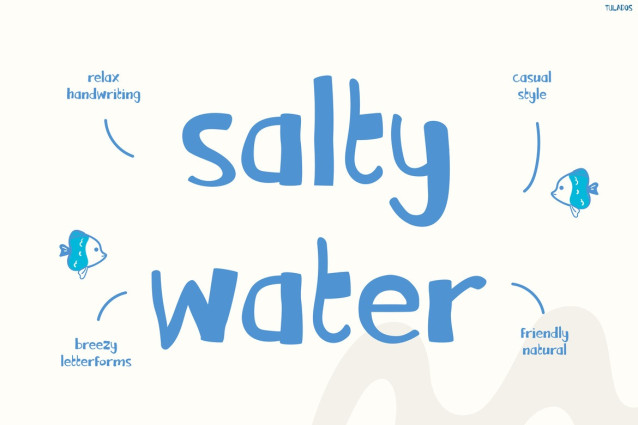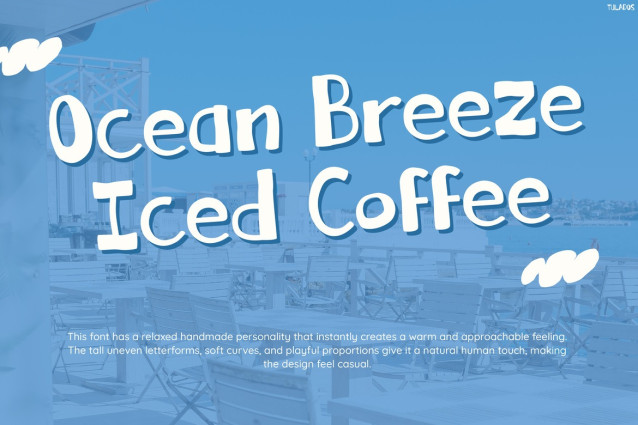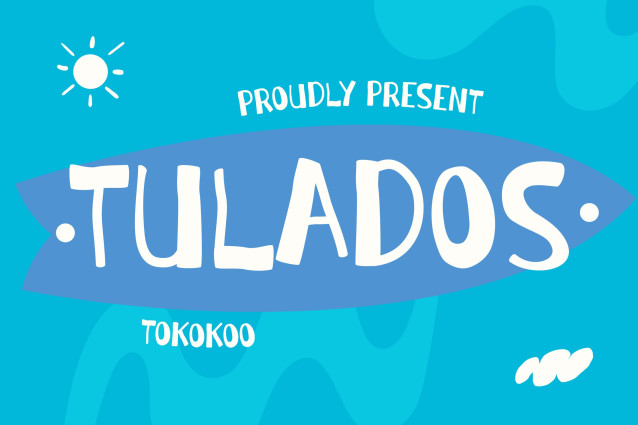
Tulados Font
Tulados Font brings cheerful beach vibes, playful handwritten shapes, and relaxing summer energy into every design. Moreover, the soft curves and quirky letterforms create a friendly aesthetic that feels lighthearted, fun, and instantly eye-catching. Inspired by ocean adventures, tropical cafés, coastal vacations, and sunny afternoon moments, this font delivers a fresh handmade look that feels both cute and stylish. In addition, the clean structure keeps every word readable while still maintaining its playful personality. As a result, headlines, posters, logos, packaging, and social media graphics look brighter and more expressive. Furthermore, the handmade style adds warmth and personality that instantly makes designs feel more inviting. At the same time, the playful details help creative projects appear more unique and visually memorable. Whether used for branding or creative content, Kids Font Tulados delivers a cheerful summer mood that feels trendy and refreshing.
Perfect for Creative Summer-Themed Projects
Designed for creators who love fun and relaxed aesthetics, Kids Font Tulados works beautifully for kids branding, beach cafés, summer posters, drink packaging, ice coffee promotions, vacation merchandise, stickers, social media posts, and playful logo designs. Furthermore, the handwritten style creates a casual and approachable mood that connects naturally with modern audiences. In addition, the coastal-inspired personality makes every design feel warmer and more engaging visually. Because of its unique beachside charm, the font fits perfectly into trendy lifestyle branding and cheerful creative projects. Meanwhile, the balanced spacing keeps text clean and easy to read across both digital and print designs. Additionally, the playful style helps promotional materials feel more energetic, friendly, and visually appealing for wider audiences.